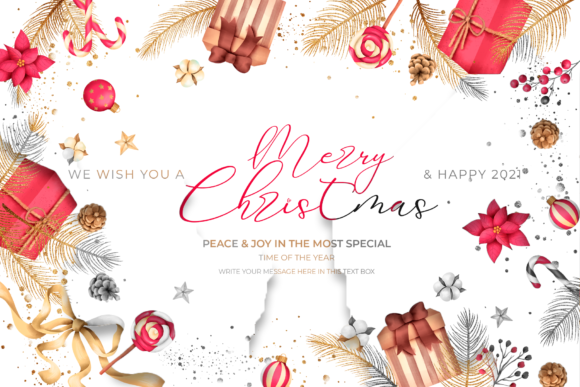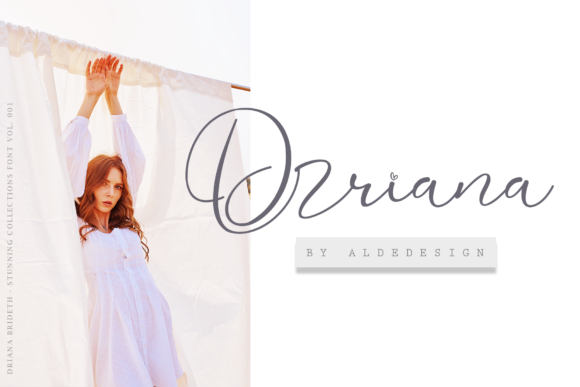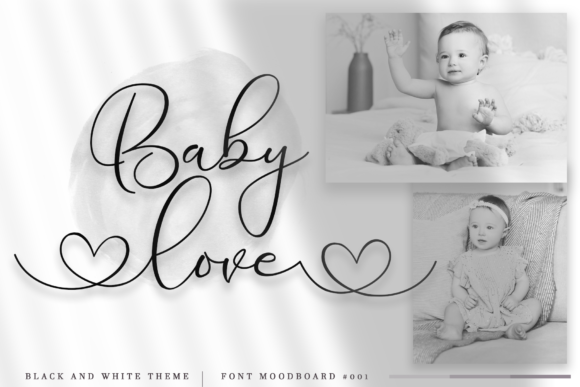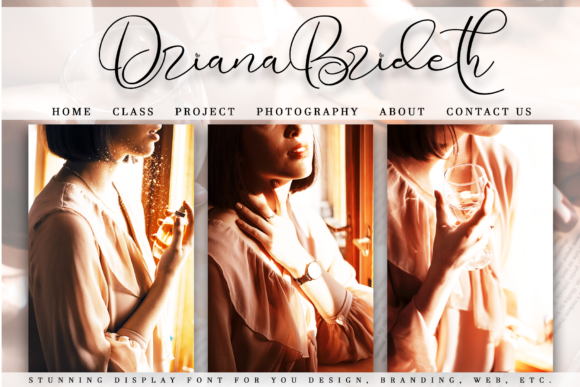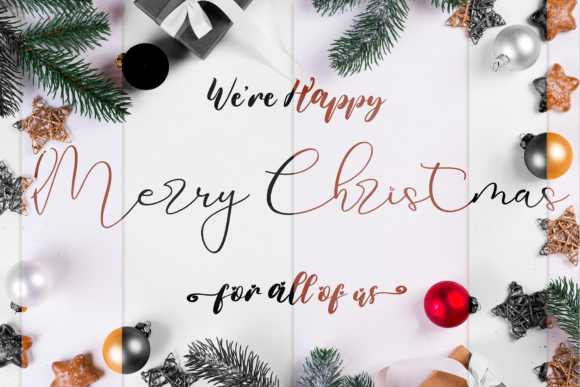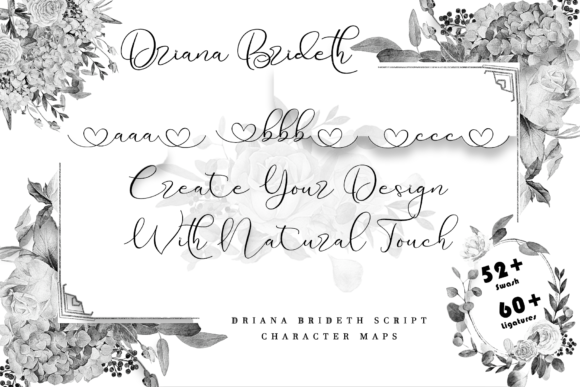
Driana Font: Elevate Your Designs with Elegance and Sophistication
Are you looking for a font that exudes style, modernity, and elegance? Look no further than the stunning Driana Font. This beautiful calligraphy font is perfect for designers and crafters seeking to add a touch of sophistication to their projects. With its varying baseline, smooth lines, and contemporary design, Driana Font is sure to elevate your designs to new heights.
What Makes Driana Font So Special?
Driana Font is a stylish calligraphy font that boasts a unique and eye-catching design. Its varying baseline gives it a dynamic and fluid feel, while its smooth lines ensure that it remains legible and easy to read. This font is perfect for creating stunning headings, elegant wedding invitations, and sophisticated logos. Whether you’re a designer, crafter, or DIY enthusiast, Driana Font is an excellent addition to your font collection.
Endless Possibilities with Driana Font
One of the best things about Driana Font is its versatility. This font can be used for a wide range of purposes, including:
- Headings: Add a touch of elegance to your headings and titles with Driana Font.
- Weddings: Create stunning wedding invitations, place cards, and ceremony programs with this beautiful font.
- Invitations: Whether it’s a birthday party, baby shower, or graduation, Driana Font is perfect for creating eye-catching invitations.
- Signatures: Add a personal touch to your digital signatures or create custom signatures for your clients.
- Logos: Create stunning logos for your brand or business with Driana Font.
- Branding: Use Driana Font to create a cohesive brand identity that exudes elegance and sophistication.
- T-shirts: Create custom t-shirts with Driana Font for a unique and stylish look.
- Letterheads: Elevate your business correspondence with Driana Font.
Why Designers and Crafters Love Driana Font
Designers and crafters love Driana Font for its unique blend of style, elegance, and versatility. Here are just a few reasons why:
- Easy to Read: Despite its elegant design, Driana Font remains easy to read, making it perfect for body text and headings.
- Highly Versatile: Driana Font can be used for a wide range of projects, from weddings and invitations to logos and branding.
- Modern Design: Driana Font features a modern design that is sure to appeal to designers and crafters looking for a contemporary look.
- Customizable: Driana Font can be easily customized to fit your project’s specific needs.
Tips for Using Driana Font
Here are a few tips for getting the most out of Driana Font:
- Pair with Other Fonts: Driana Font pairs well with other fonts, so don’t be afraid to experiment with different combinations.
- Use for Headings: Driana Font is perfect for headings and titles, so use it to add a touch of elegance to your designs.
- Experiment with Colors: Driana Font looks stunning in a variety of colors, so don’t be afraid to experiment with different color schemes.
In conclusion, Driana Font is a stunning calligraphy font that is perfect for designers and crafters seeking to add a touch of elegance and sophistication to their projects. With its varying baseline, smooth lines, and modern design, Driana Font is sure to elevate your designs to new heights. Whether you’re creating headings, wedding invitations, logos, or branding, Driana Font is an excellent choice. So why wait? Download Driana Font today and start creating stunning designs that exude style and sophistication.